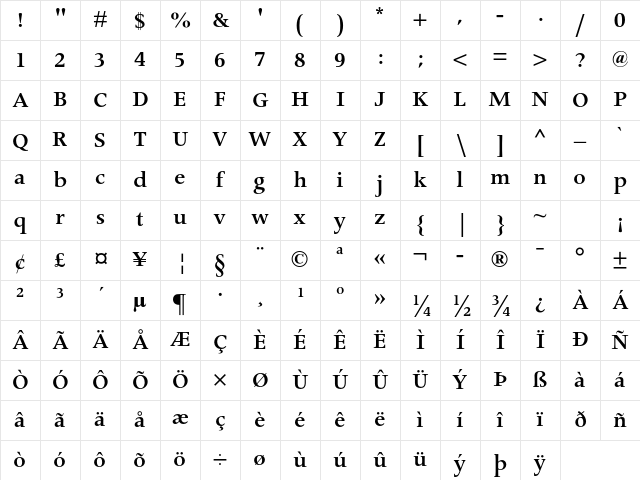
Apollo MT Std Semibold
Style: Semibold
Complete Apollo MT Std Semibold glyph index. Displaying only characters natively supported by Apollo MT Std Semibold font.
Design Context for Apollo MT Std
Apollo MT Std is a composed and adaptable typeface that performs quietly and consistently across a wide range of design contexts. Its bold stroke weight gives it real presence on the page.